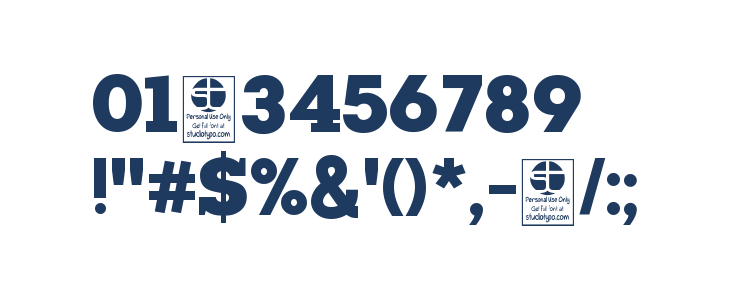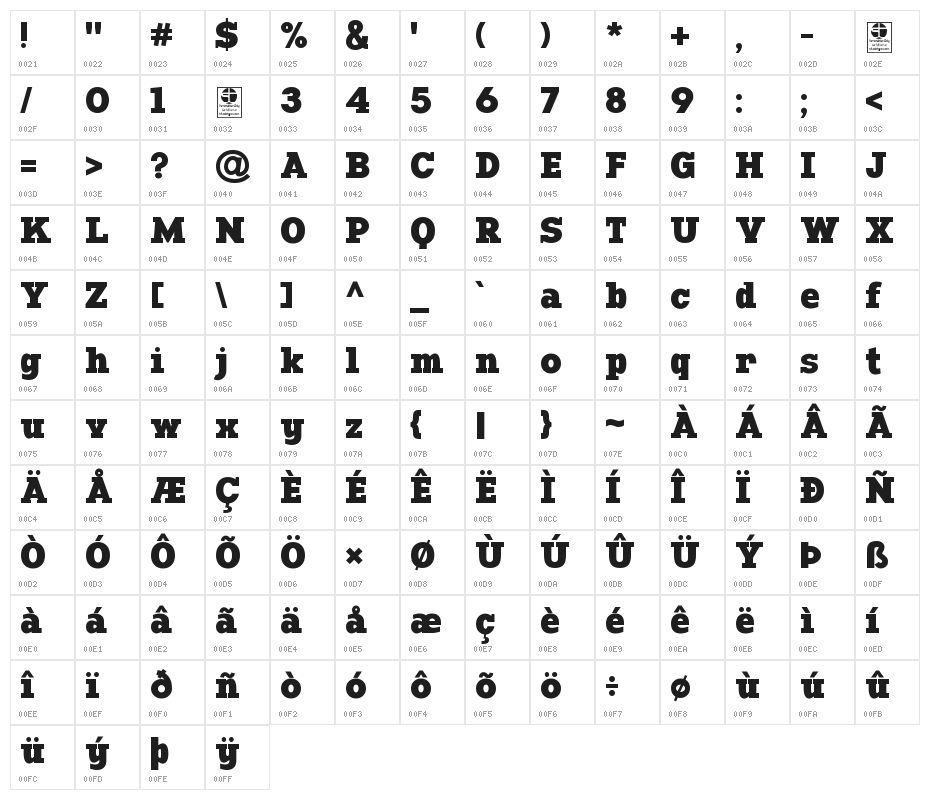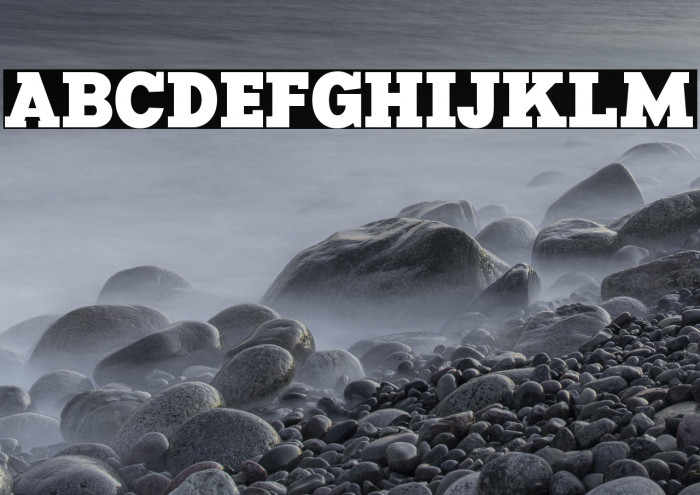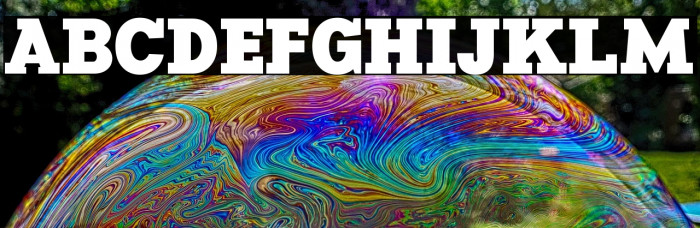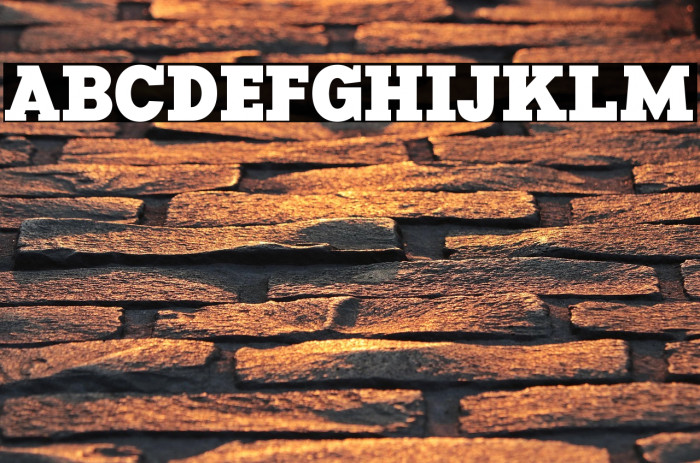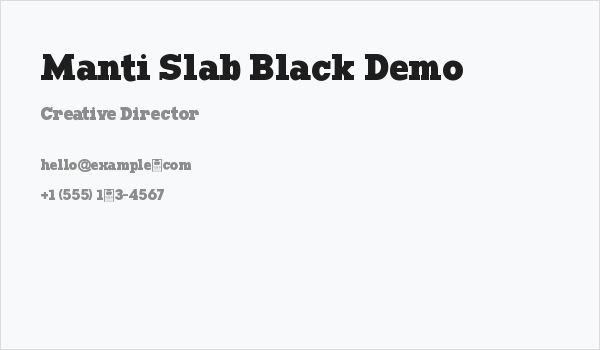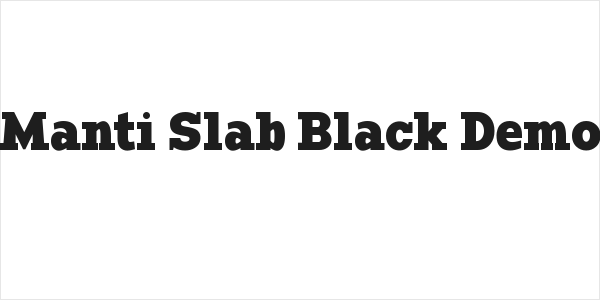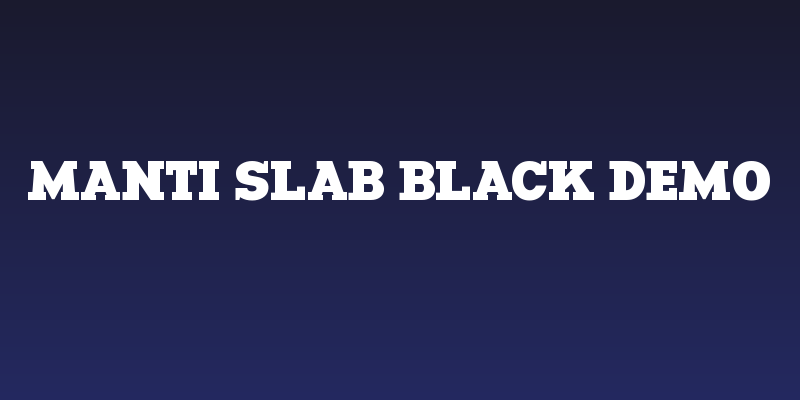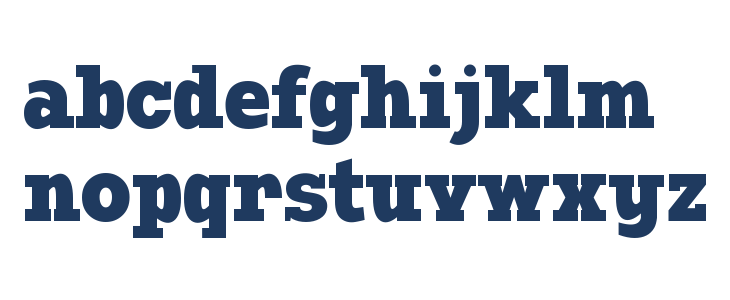
Manti Slab Black Demo Font
Manti Slab Black Demo Description
This typeface features bold, thick strokes with a strong presence, making it ideal for impactful designs. The characters are well-defined with slab serifs that add a touch of classic style while maintaining a modern edge. The uppercase and lowercase letters are consistent in weight, providing a uniform appearance across the alphabet. Numbers and special characters are equally bold, ensuring readability and emphasis. The font's overall design is robust and sturdy, suitable for projects that require a commanding visual element.
| Proposed Projects | Ideal for headlines, posters, branding, and any design requiring a bold statement. |